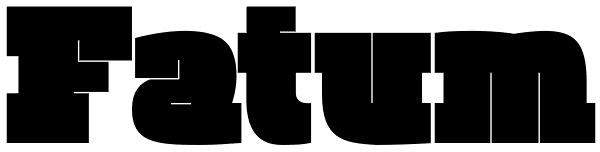
Fatum
Fatum™ is a new original ultrablack slab serif typeface that was initiated by the impression of the TDC 2011 exhibition. Redundant stem thickness and closed character shapes make a feeling that counterspaces are the narrow slits cut in massive...